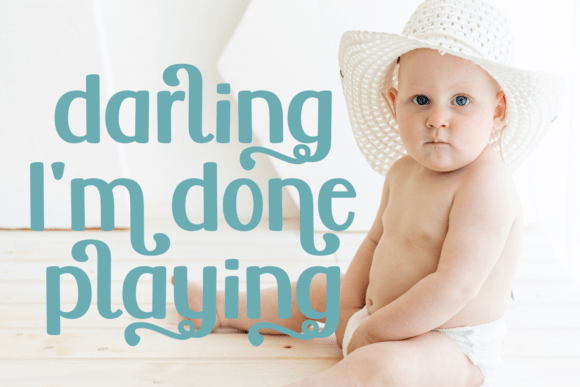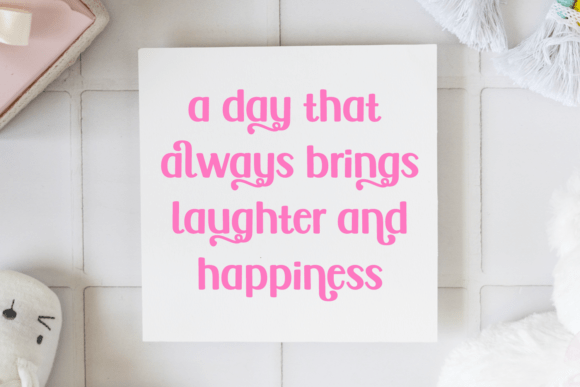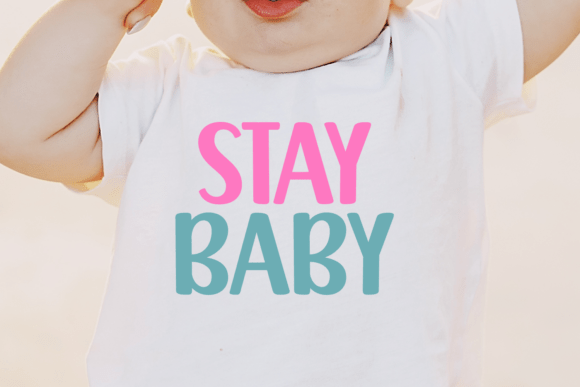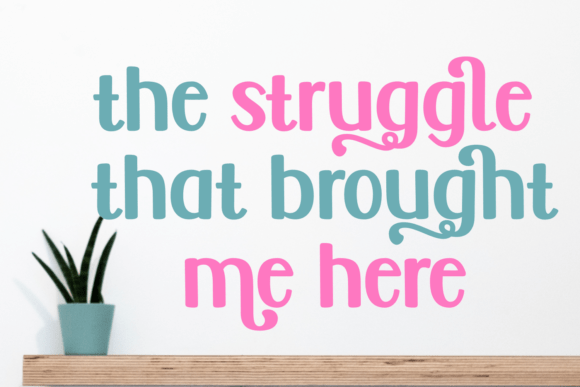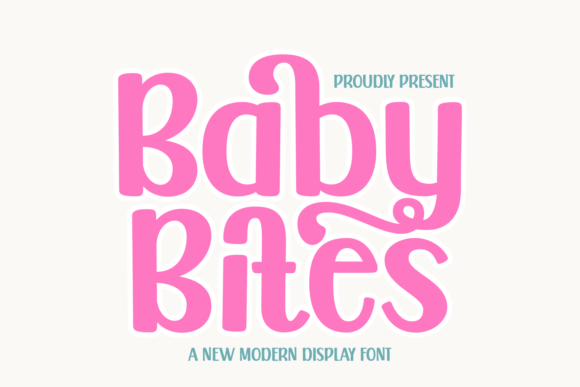
Introducing Baby Bites Font: The Ultimate Choice for Playful and Adorable Designs
Are you a designer, crafter, or DIY enthusiast looking for a font that embodies the perfect blend of boldness, cuteness, and fun? Look no further than the Baby Bites Font! This charming font is designed to capture the hearts of kids and adults alike with its quirky, groovy, and retro vibe that’s reminiscent of the 70s, 80s, and 90s.
A Font that Channels the Charm of the Past
The Baby Bites Font is more than just a font – it’s a statement piece that brings a touch of nostalgia and playfulness to any design project. Its unique blend of bold lines, cute details, and fun features makes it an ideal choice for creating adorable children’s designs, unicorn girly signs, and joyful quotes. Whether you’re working on a Cricut project, scrapbooking, or crafting, this font is sure to add a cheerful and happy spin to your creations.
Key Features of Baby Bites Font
- Engaging Display: The Baby Bites Font boasts a delightful doodle feature that adds a playful touch to any design.
- Simple yet Lovely Design: The font’s simple yet lovely design makes it easy to read and understand, while its quirky features keep it interesting and fun.
- Unique Tail Font: The font comes equipped with a unique tail font that’s perfect for crafting, scrapbooking, and handmade projects.
The Baby Bites Font is a versatile font that’s perfect for designers and crafters who want to add a playful and adorable touch to their projects. Whether you’re creating:
- Children’s designs, such as stickers, posters, and flyers
- Unicorn girly signs and quotes
- Cricut projects, such as custom vinyl decals and iron-on designs
- Scrapbooking and handmade projects, such as cards and gift tags
the Baby Bites Font is sure to be a great addition to your design toolkit.
Why Choose Baby Bites Font?
So why choose the Baby Bites Font over other fonts? Here are just a few reasons:
- Unique and Playful: The Baby Bites Font offers a unique and playful spin on traditional fonts, making it perfect for designers and crafters who want to stand out.
- Easy to Read and Understand: The font’s simple yet lovely design makes it easy to read and understand, even for young children.
- Versatile: The Baby Bites Font can be used for a wide range of design projects, from children’s designs to Cricut projects and scrapbooking.
Get Ready to Add a Cheerful Touch to Your Designs!
| Font Name | Baby Bites Font |
| Author | Ade (7NTypes) |
In conclusion, the Baby Bites Font is a must-have font for designers and crafters who want to add a playful and adorable touch to their projects. With its unique blend of boldness, cuteness, and fun, this font is perfect for creating children’s designs, unicorn girly signs, and joyful quotes. Its quirky, groovy, and retro vibe channels the charm of the 70s, 80s, and 90s, making it a great choice for anyone looking to add a touch of nostalgia to their designs. So don’t miss out on this amazing font – download the Baby Bites Font today and start creating!